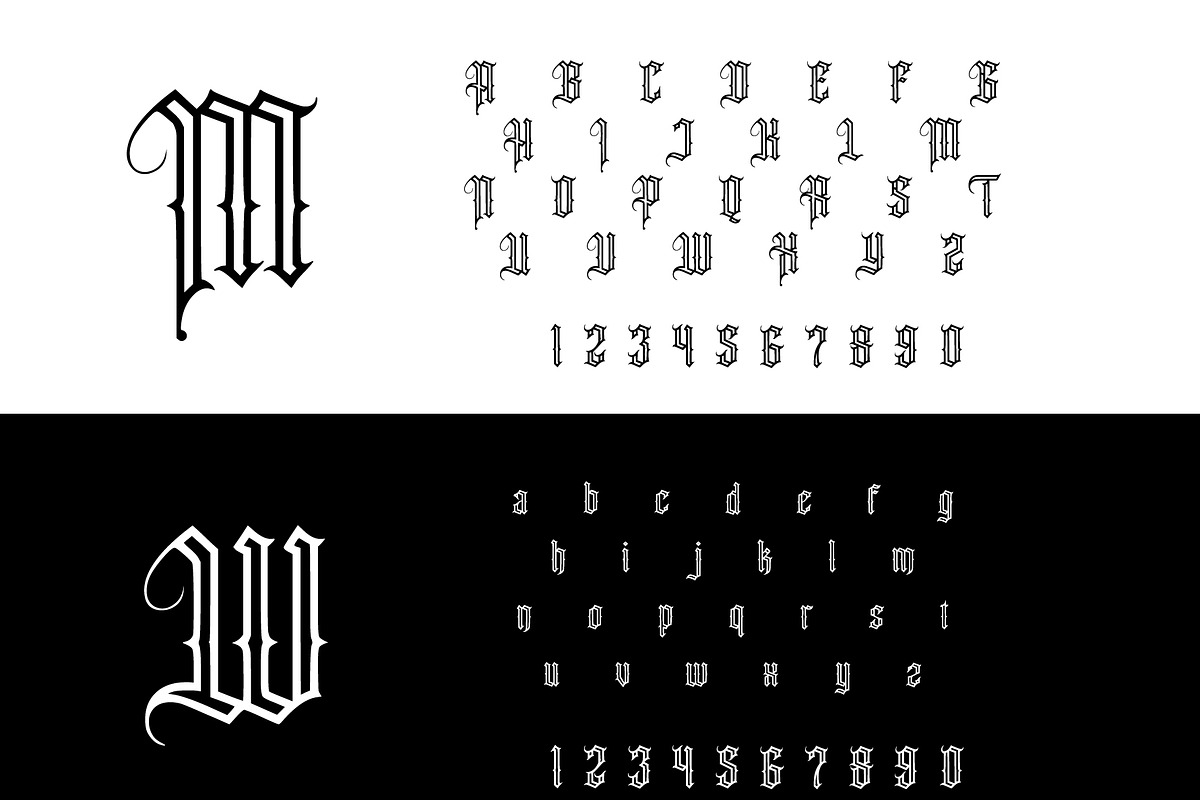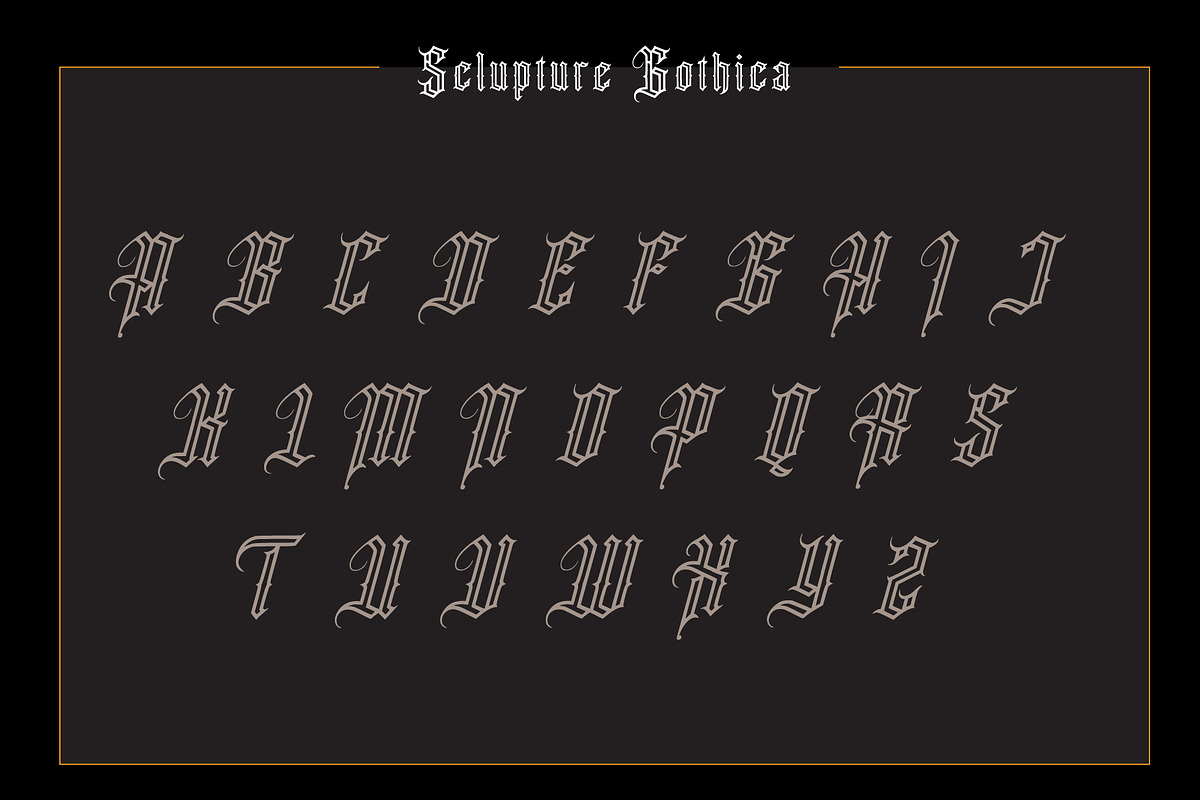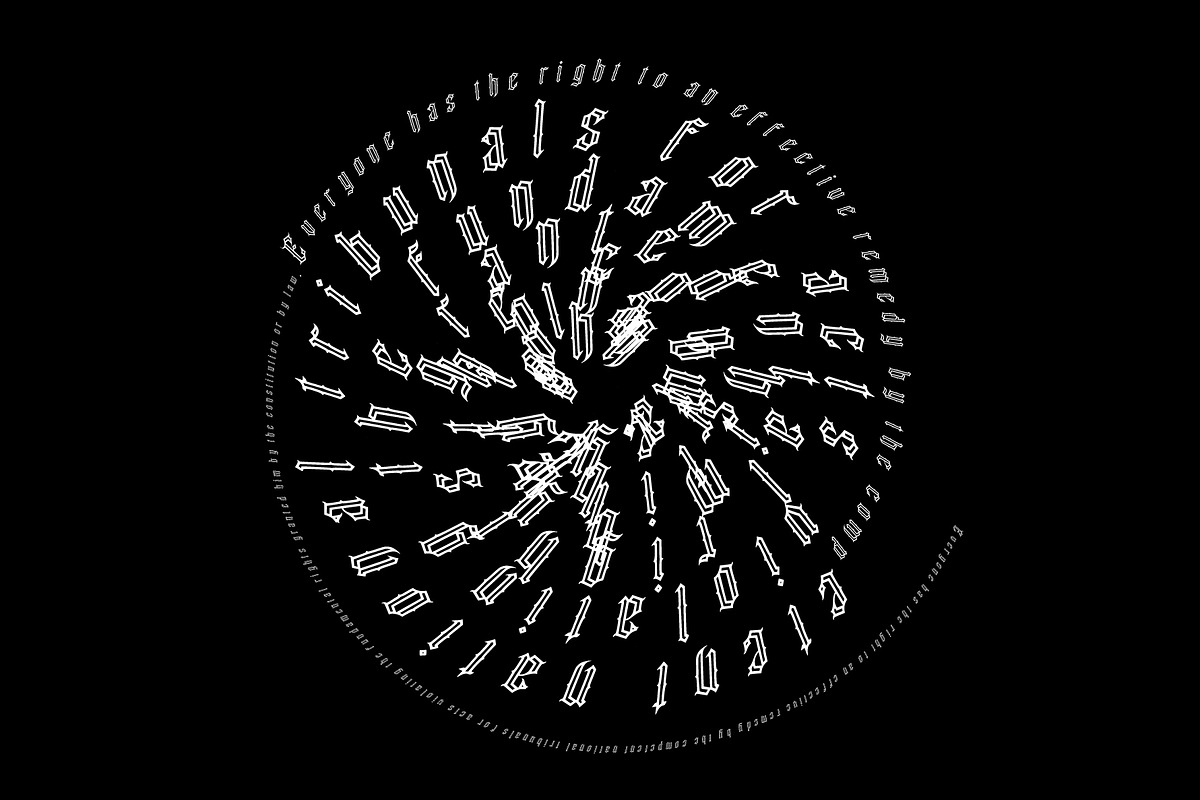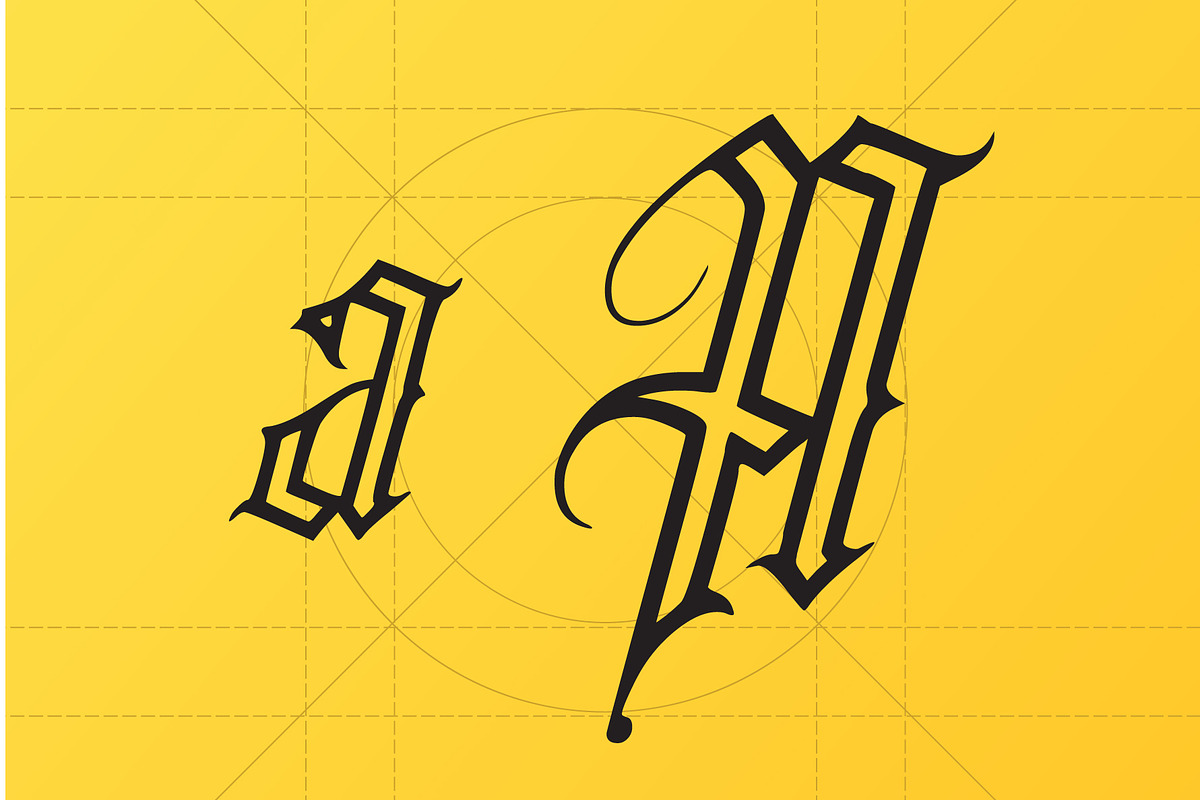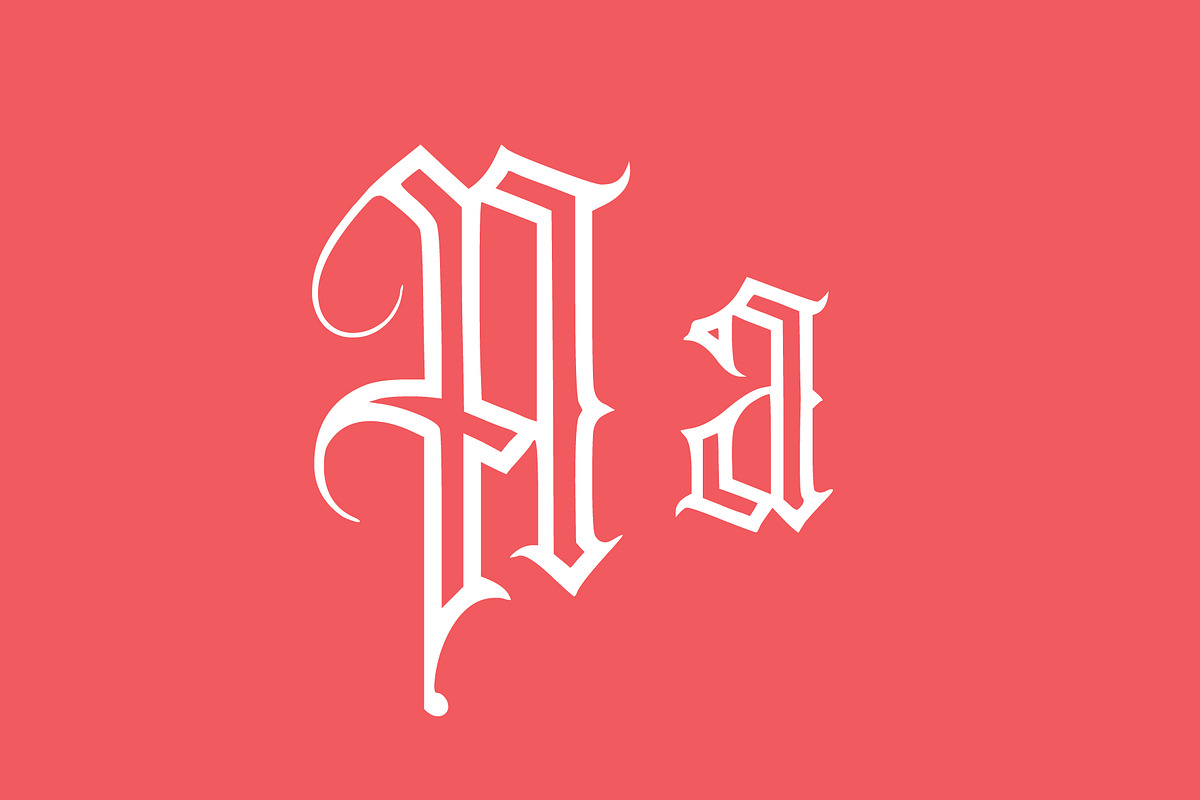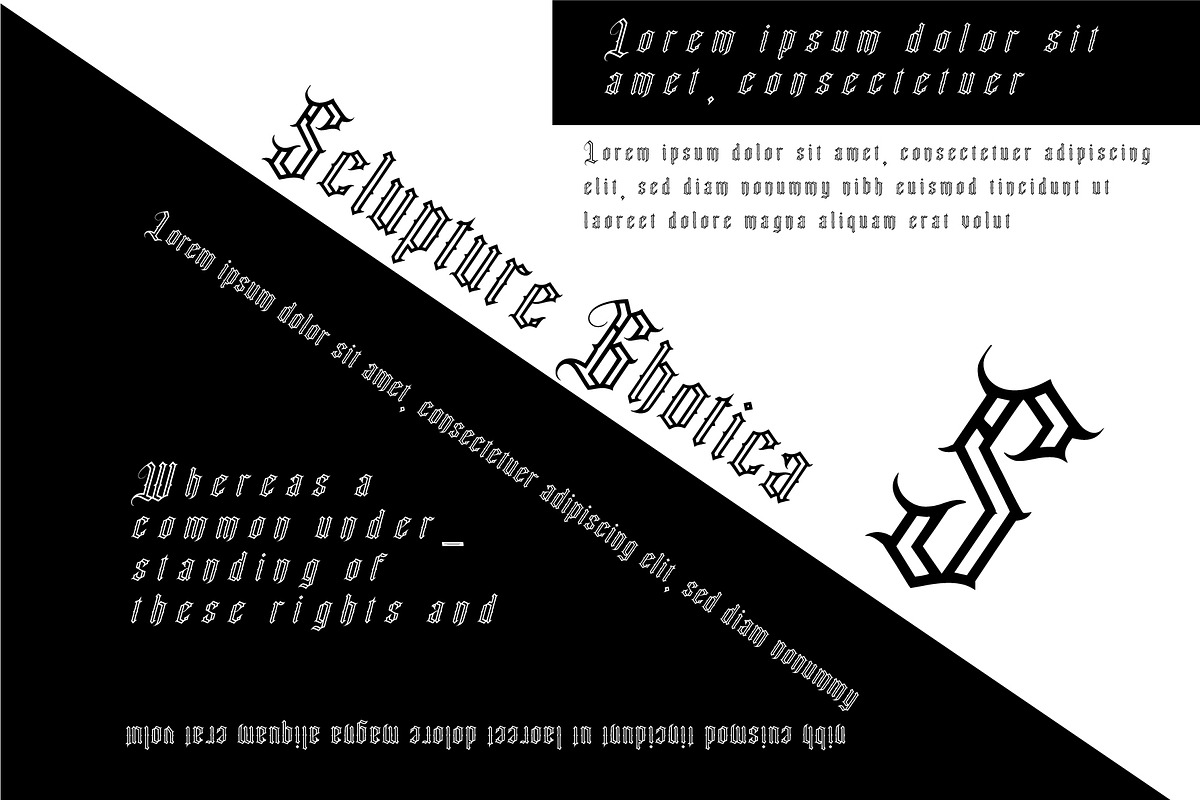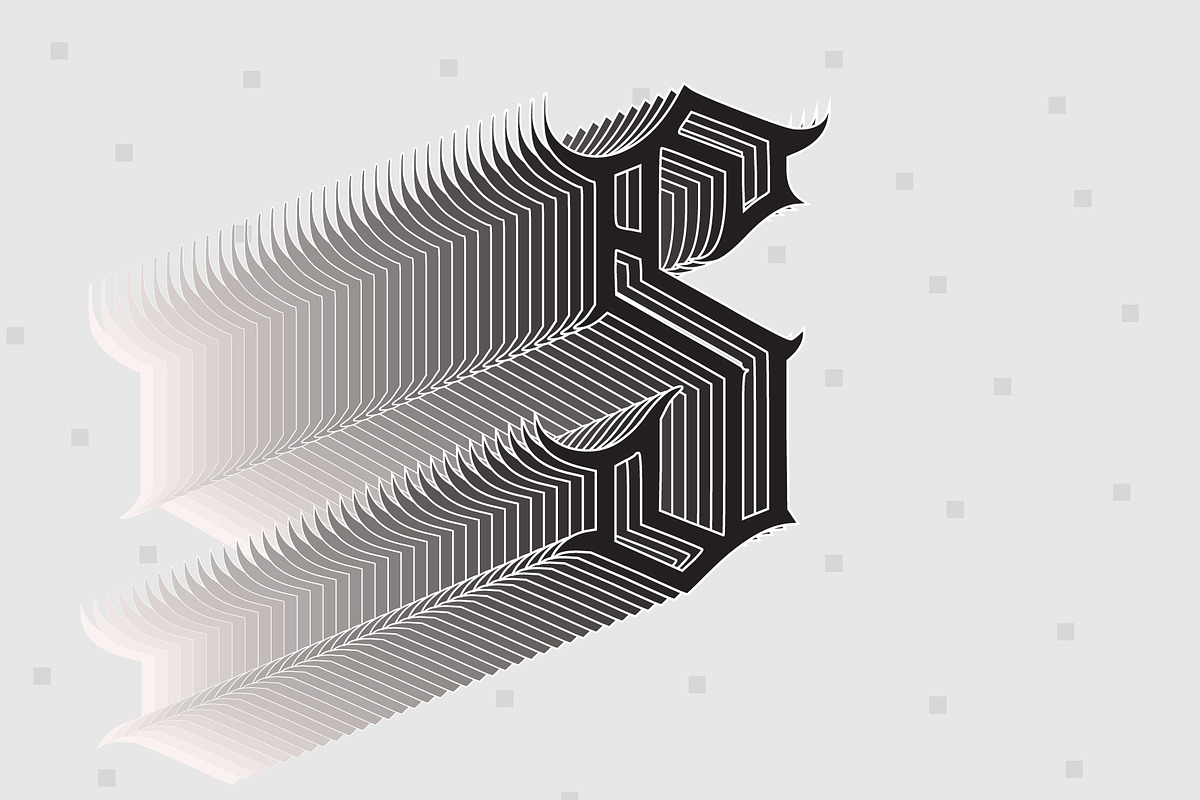
Sclupture Gothica Letter
Blackletter (sometimes black letter or black-letter), also known as Gothic script, Gothic minuscule or Gothic type, was a script used throughout Western Europe from approximately 1150 until the 17th century.
Sclupture Gothica Letter Italic